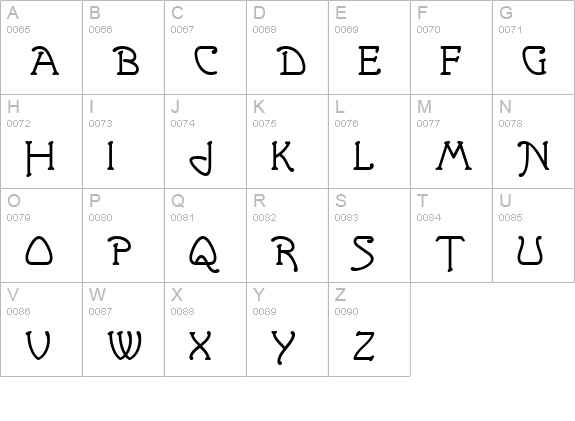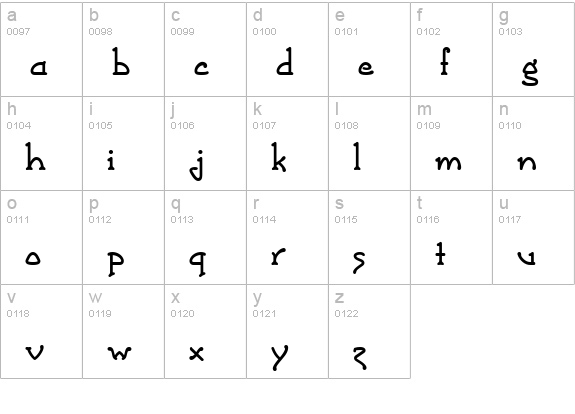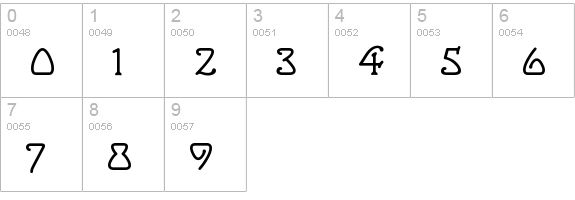
Grasshopper Font Details
Introducing Grasshopper font, a beautifully crafted typeface that brings a sense of elegance and sophistication to any design project. With its sleek and modern design, Grasshopper font is the perfect choice for those looking to add a touch of refinement to their work. But what sets Grasshopper font apart is not just its stunning aesthetics, it's also the fact that it is completely free to download. Yes, you heard that right – this incredible font is freely available to download at FontsMarket.com, making it accessible to designers and creatives of all backgrounds. Whether you're working on a logo, a website, a brochure, or any other design project, Grasshopper font will elevate your work to new heights. Its clean lines and well-balanced letterforms make it easy to read and pleasing to the eye, ensuring that your message is delivered with clarity and style. Not only is Grasshopper font visually appealing, but it also offers a wide range of weights and styles, giving you the flexibility to create designs that are unique and impactful. From bold headlines to delicate body text, this font has got you covered. So why wait? Take advantage of this incredible opportunity to enhance your design projects with the exceptional Grasshopper font. Download it for free at FontsMarket.com and let your creativity soar.